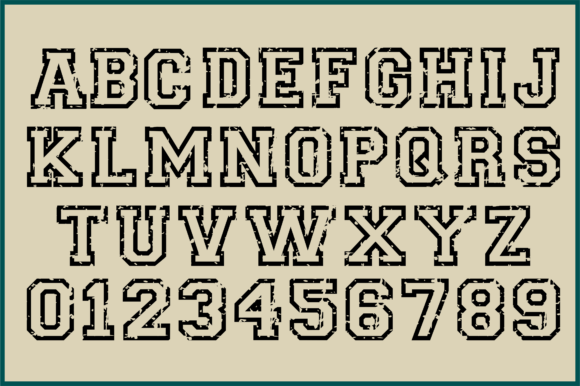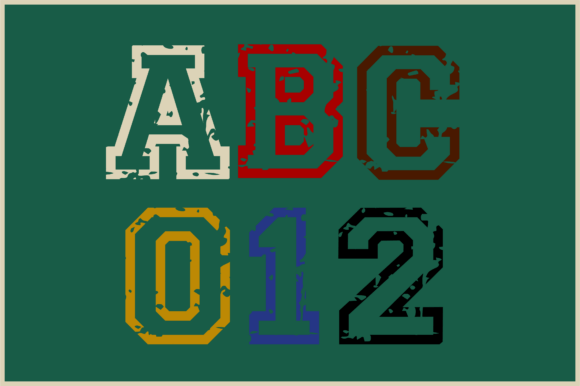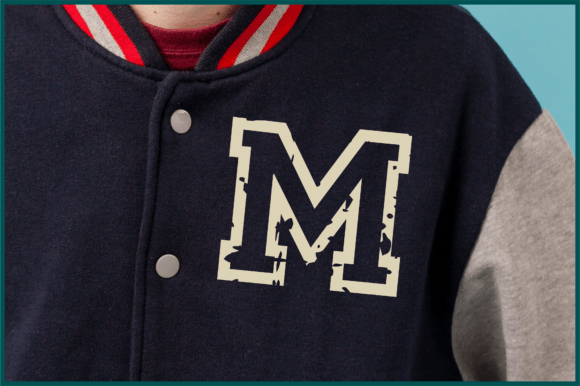
Introduction to Rough Varsity Font
Do you remember the thrill of designing a custom varsity jacket for your high school team or college crew? The rush of excitement as you poured your heart and soul into creating a unique identity that reflected your school spirit? If you’re a designer looking to tap into that same energy, you’re in luck! The Rough Varsity Font is here to bring a bold, high-quality design to your creative project.
This stunning font is a game-changer for designers seeking a bold, old-school campus vibe. With its distressed effect and strong outline, the Rough Varsity Font adds an authentic athletic energy to any project. Whether you’re working on a T-shirt design, signage, or custom merchandise, this versatile font is sure to elevate your work. And the best part? It’s available as a free download with a transparent background, making it a valuable resource for designers of all levels.
So why is the Rough Varsity Font so valuable for designers? For starters, its high-quality design ensures that your projects will stand out from the crowd. Plus, its ease of use and flexibility make it perfect for a wide range of creative projects. Whether you’re a seasoned pro or just starting out, this font is sure to become a go-to design resource.
Key Features of Rough Varsity Font
- High-quality design ideal for creative projects requiring a bold, distressed look.
- Features a transparent background, allowing for seamless integration into various design compositions.
- Characterized by its unique, hand-drawn aesthetic and rough texture, adding a touch of personality to any design.
- Perfect for use in posters, flyers, social media graphics, and other visual content requiring a bold, attention-grabbing font.
Honest Review: Rough Varsity Font
As a designer, I’m always on the lookout for unique and high-quality fonts to elevate my creative projects. The Rough Varsity Font caught my eye, and I decided to give it a try.
- Unique style: The Rough Varsity Font has a distinct, rugged feel that’s perfect for adding some edge to your designs.
- Transparent background: The font’s transparent background makes it easy to use on various backgrounds, giving me more design flexibility.
- Limited character set: The font only includes uppercase and lowercase letters, which may limit its use in certain projects.
- Not ideal for body text: Due to its rugged style, the font may not be the best choice for body text, where readability is key.
Overall, I’m impressed with the Rough Varsity Font’s unique style and free availability. While it may have some limitations, it’s a great design resource for those looking to add some grit to their creative projects.
Rough Varsity Font
The Rough Varsity Font is commonly used for creative projects such as logos, posters, and social media graphics. It’s also a great resource for designers looking for a free download with a transparent background.